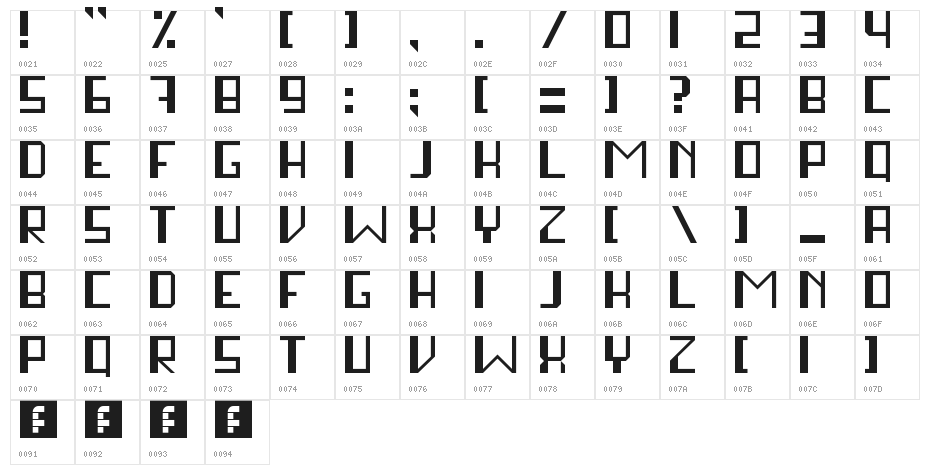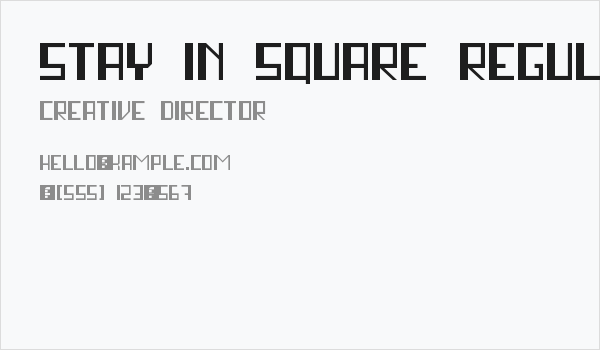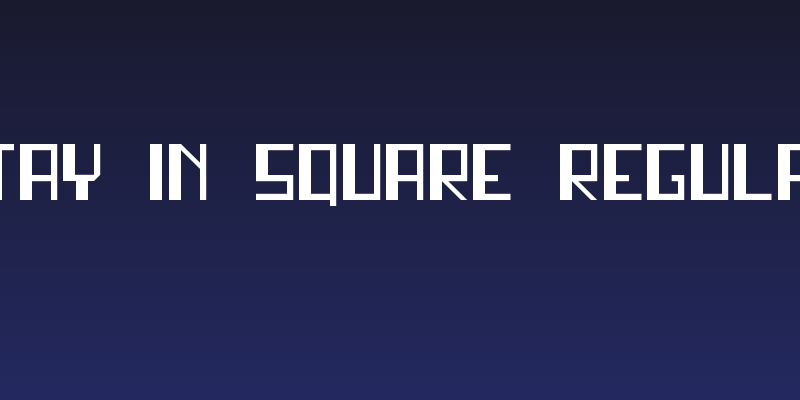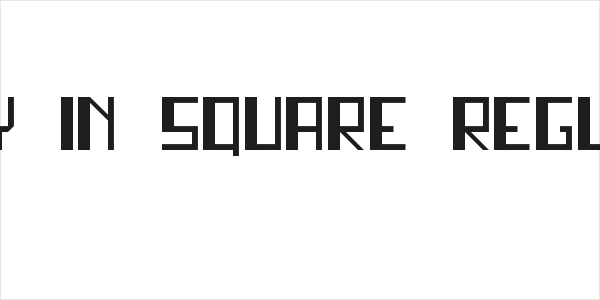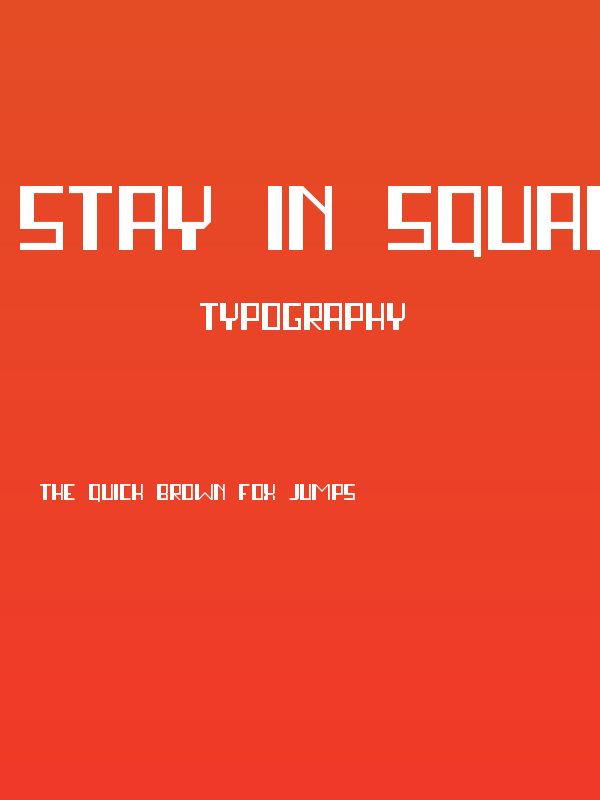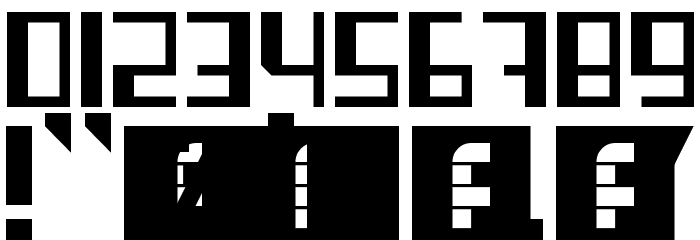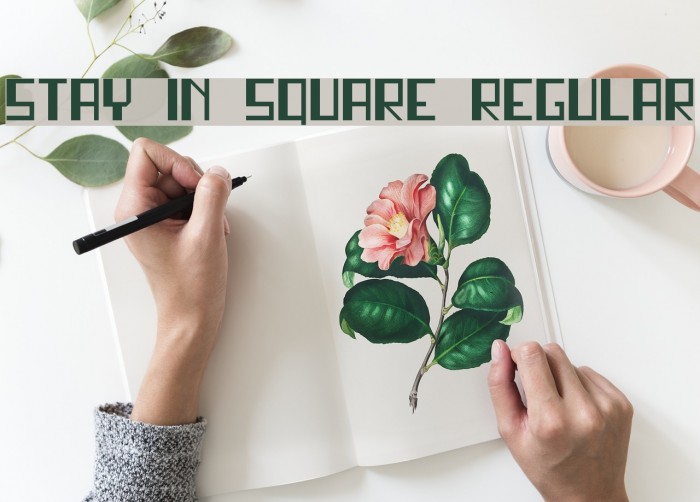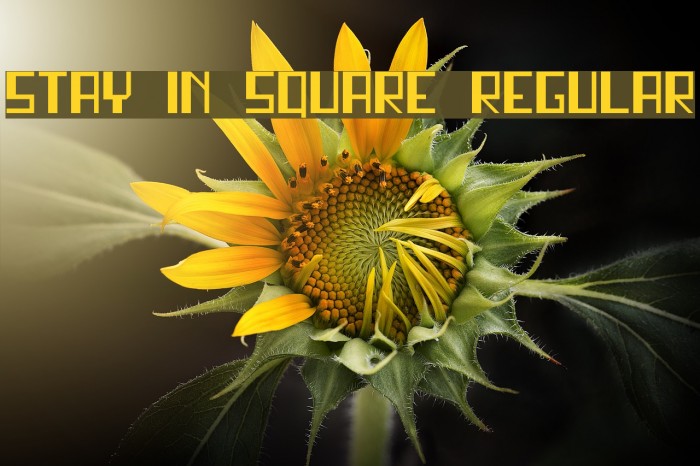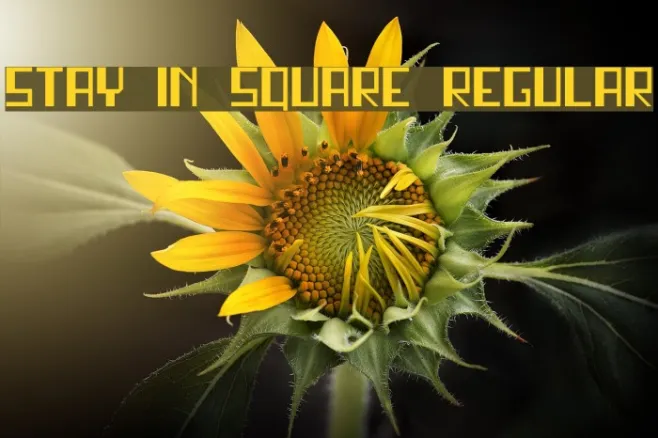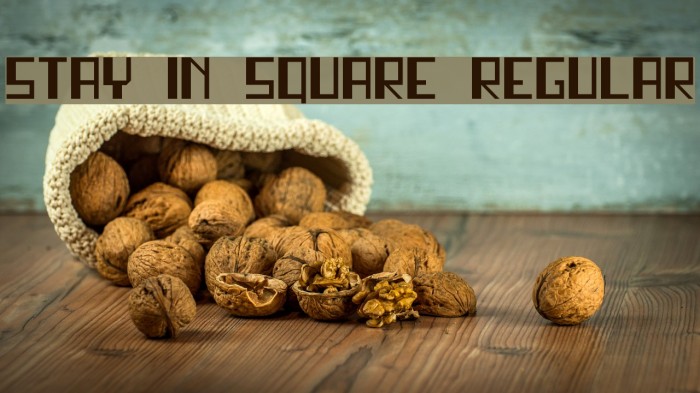
stay in square Regular Font
stay in square Regular Description
This font features a bold, geometric design with a modern and futuristic aesthetic. The characters are constructed with sharp angles and straight lines, creating a sense of precision and structure. The uppercase letters are uniform in height, while the lowercase letters maintain a consistent style, enhancing readability. The numerals are distinct and align well with the overall design, making them suitable for digital displays or tech-oriented projects. Special characters are designed with the same geometric precision, ensuring a cohesive look across all text elements.
| Proposed Projects | Ideal for tech branding, digital interfaces, video game design, and futuristic-themed posters. |